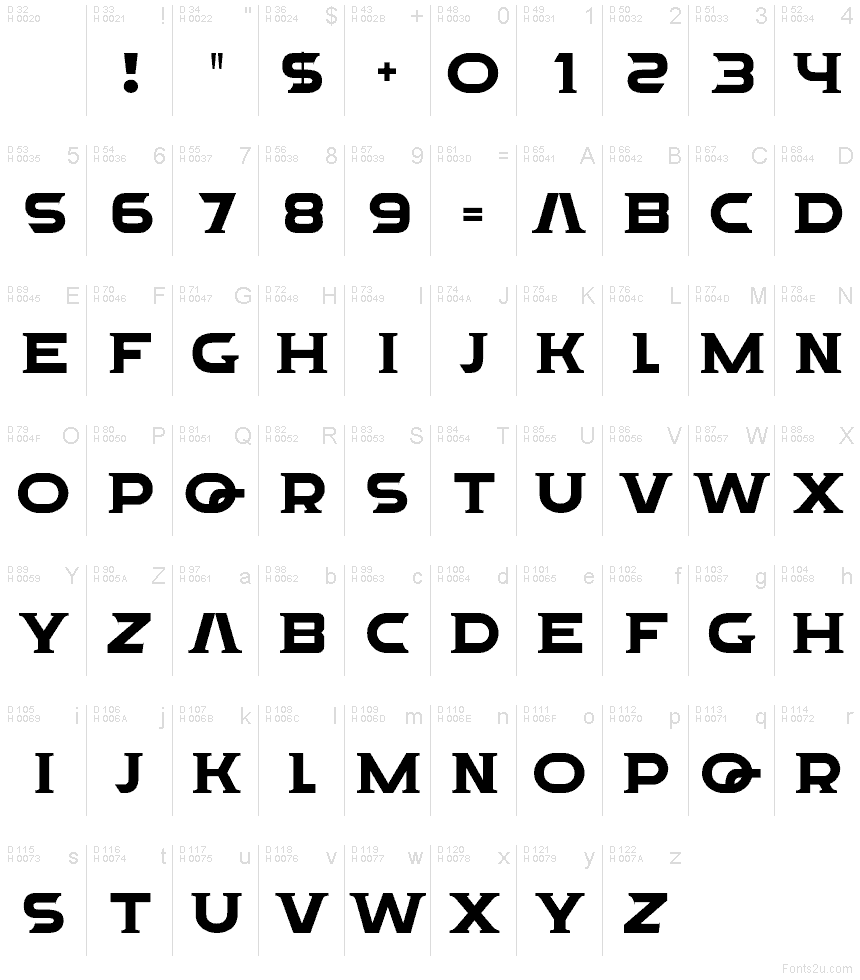
Aeogo Pxltd Serif
Aeogo Pxltd Serif font by Ffeeaarr is an expanded bold futuristic display font with condensed proportions and geometric elements reminiscent of futuristic minimalistic designs. It stands out with its unique aesthetics filled with retro hints which combine the past and future aspects of fonts for a more consistent style.